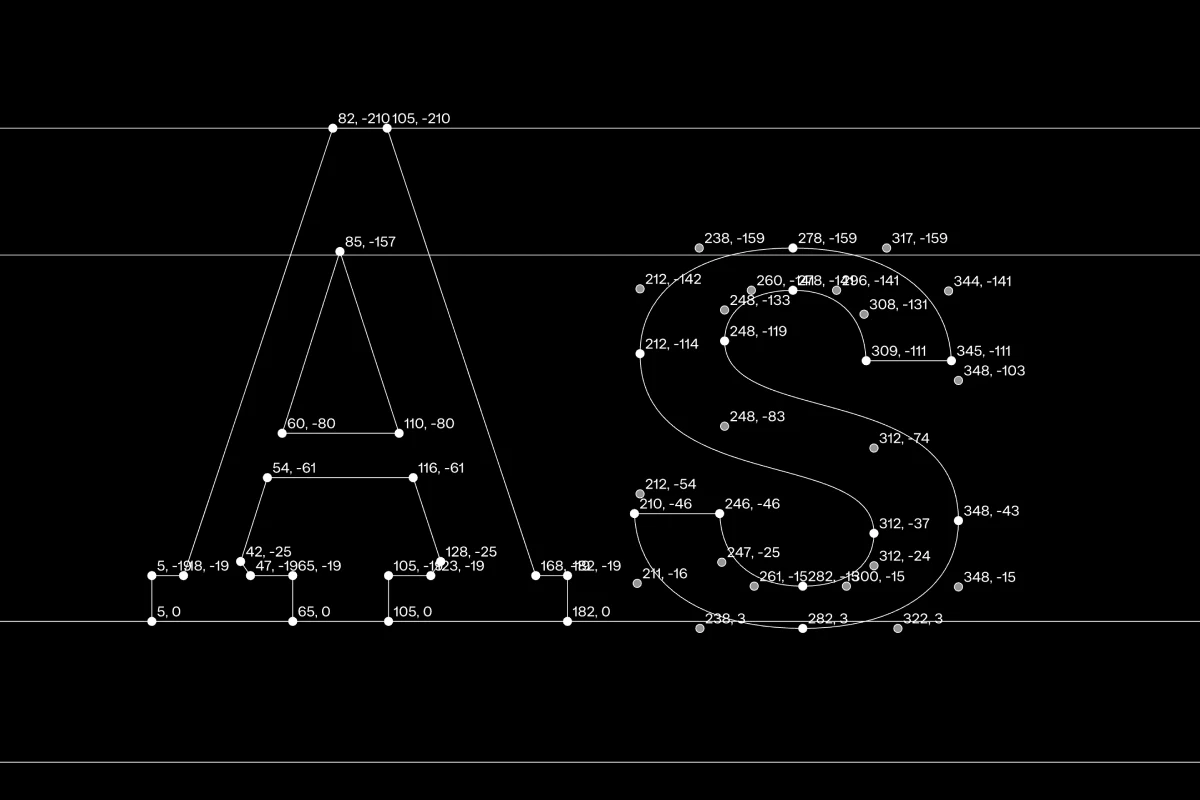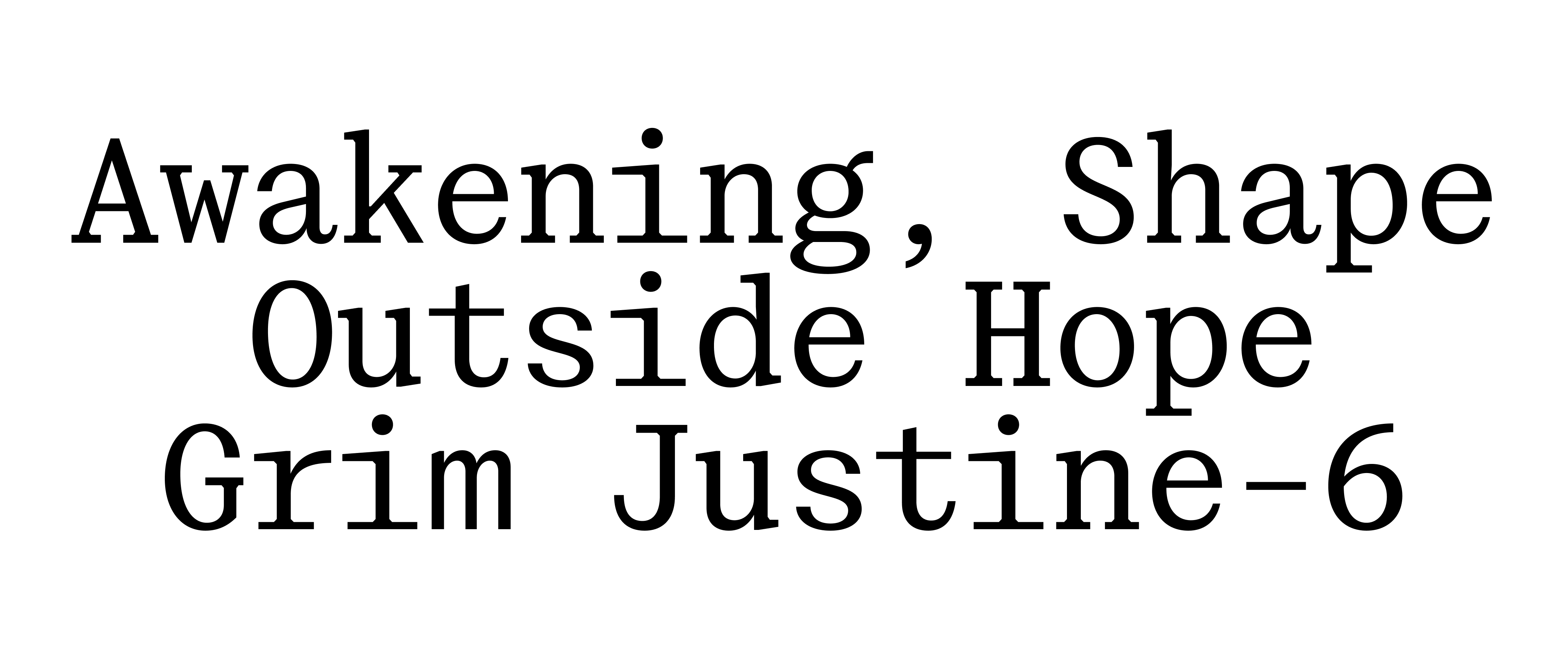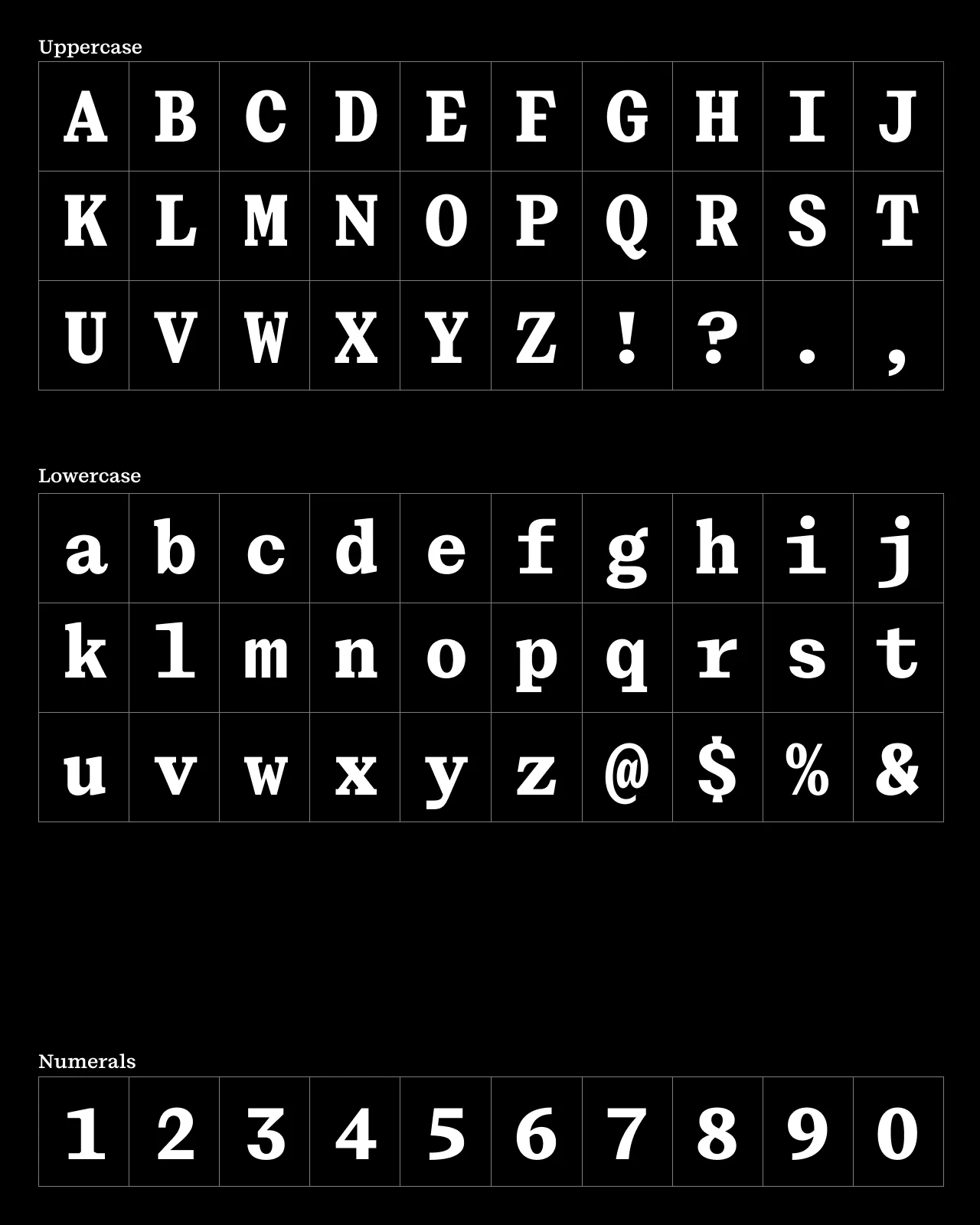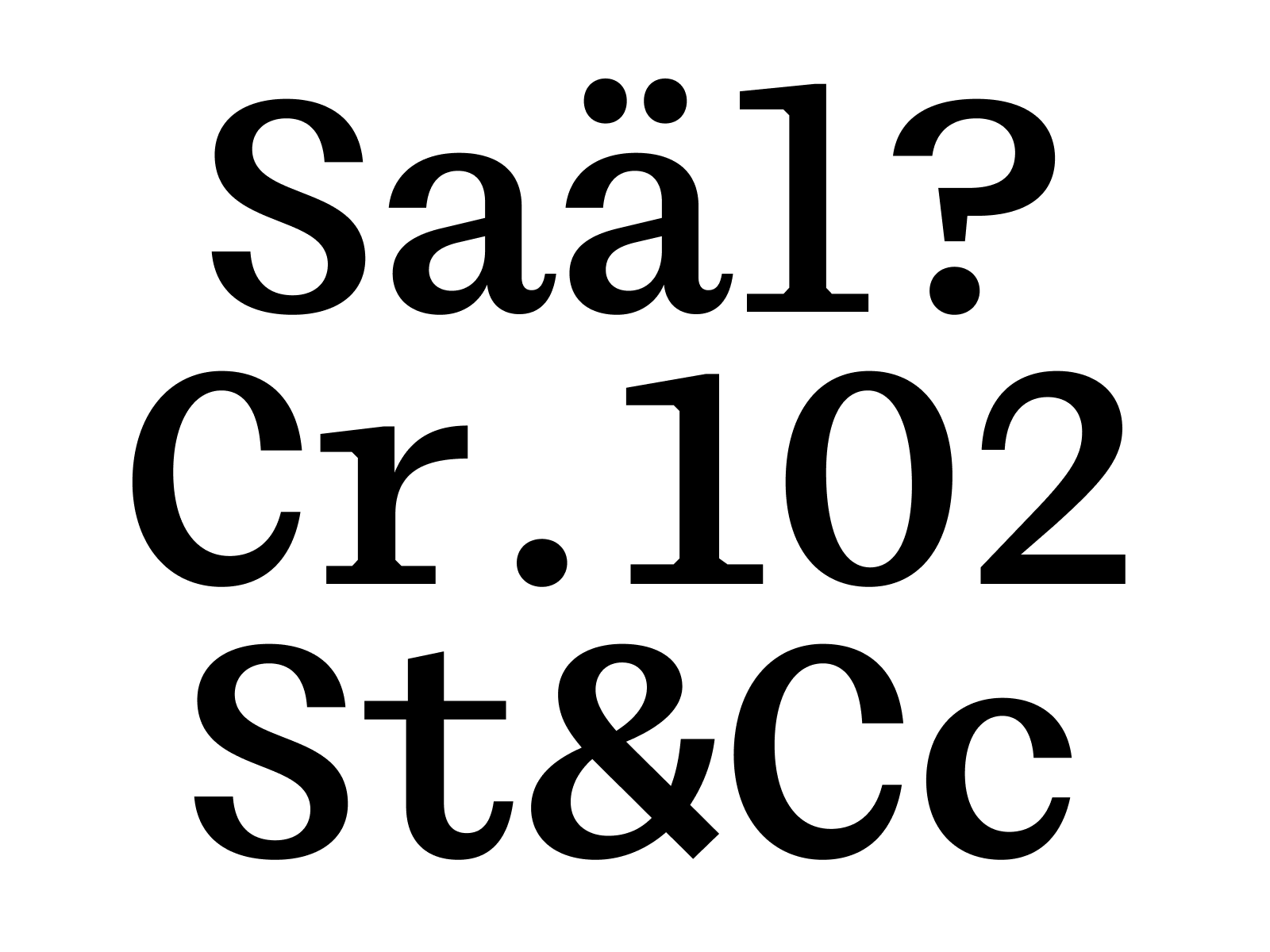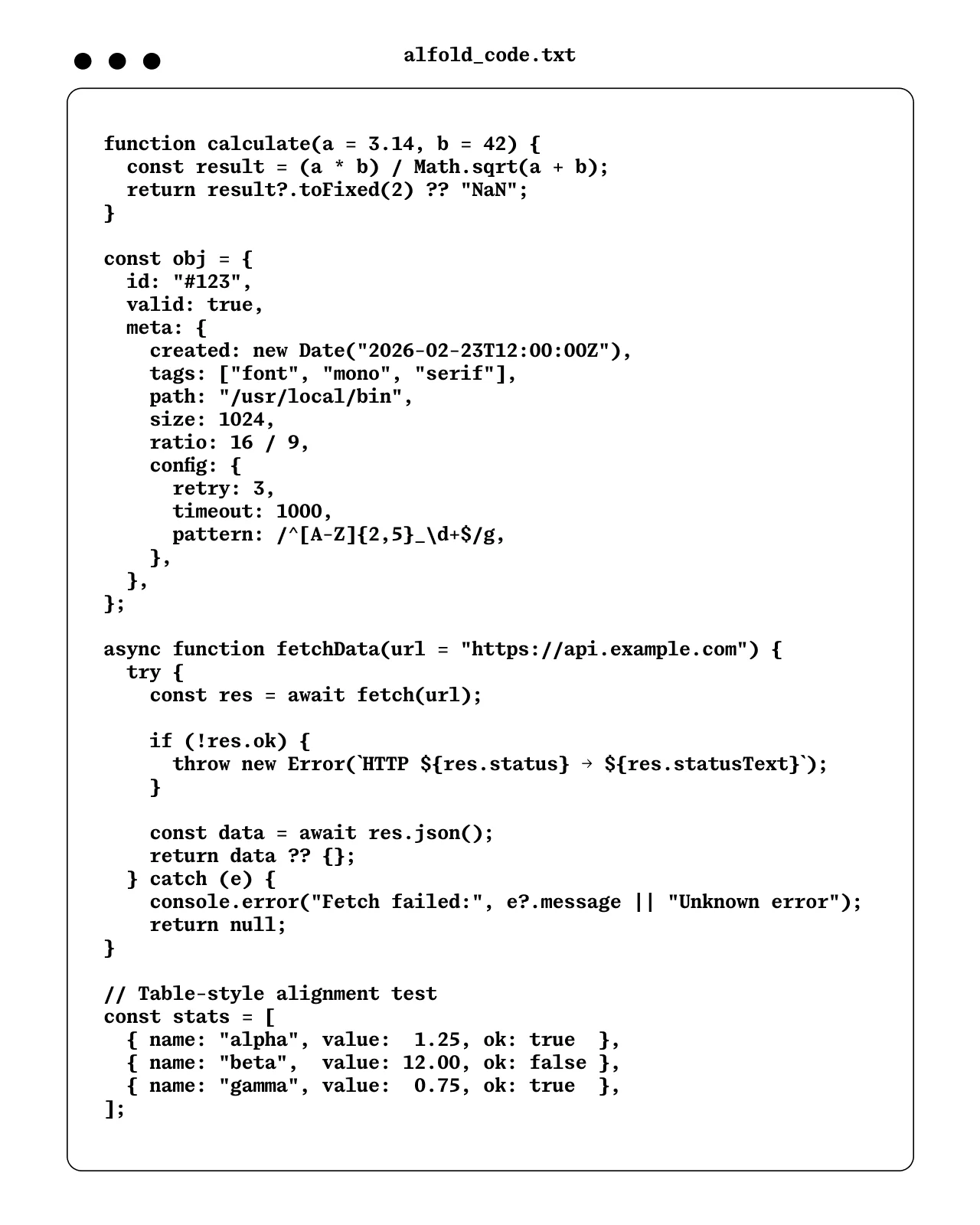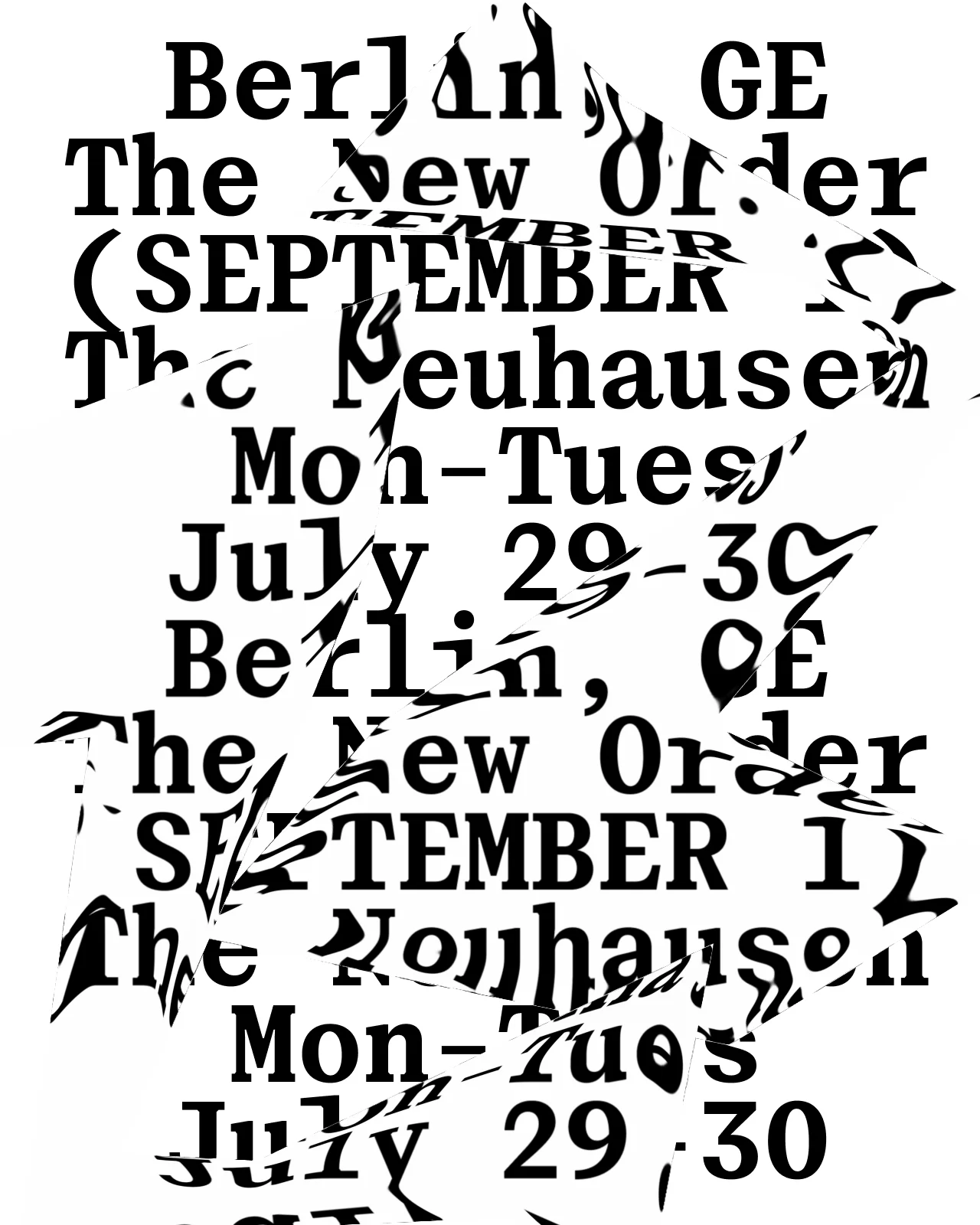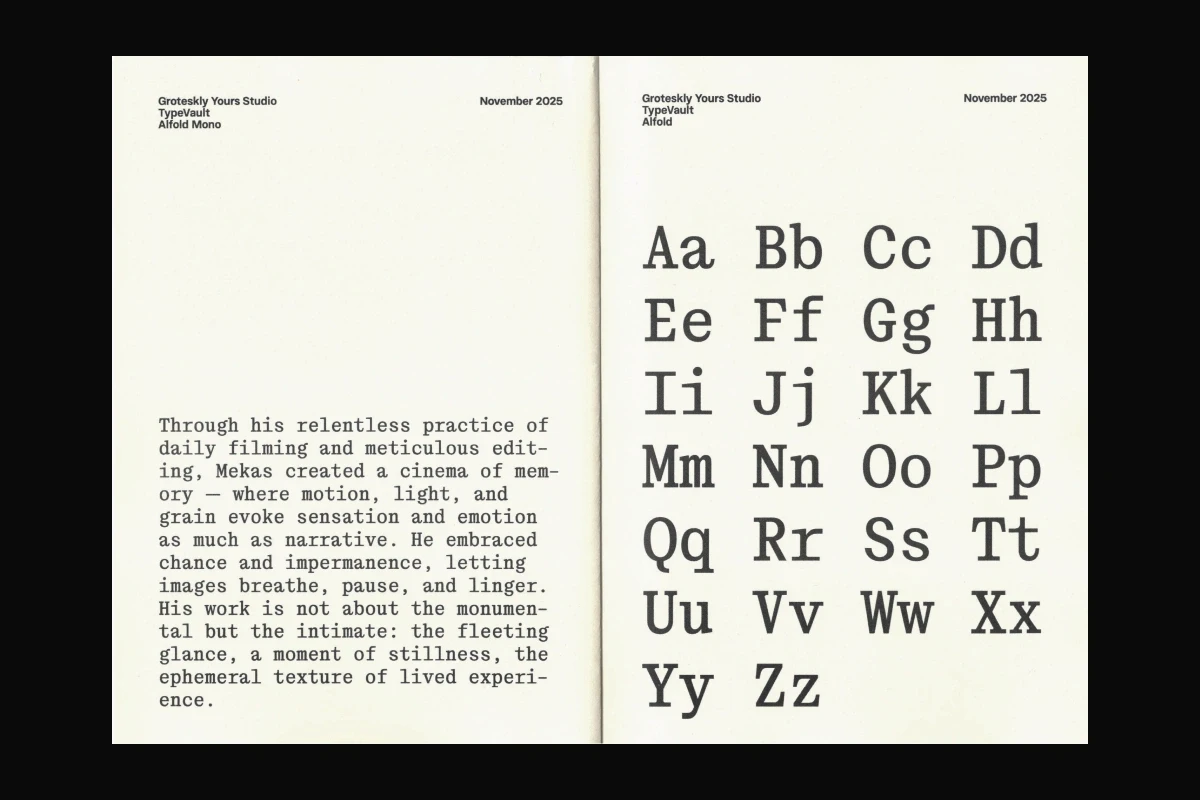
Alfold Mono
Alfold Mono is a monospaced serif font family in 9 styles. As part of the complete Alfold font family, featuring Upright, Mono and Semi-Mono subfamilies, it draws inspiration from the fonts found in the 1936 issue of the Alfold magazine from Subotica. Stylistically, Alfold opts for a toned-down, neutral look that is complimented by the straightforward character structure, tight spacing, and high versatility across all three subfamilies.
The Alfold Mono subfamily is designed as a monospaced counterpart to the Upright family, intended for more experimental design scenarios where the unmistakable monospaced aesthetic becomes a deliberate stylistic choice. Alfold Mono retains the visual character of the Alfold type family while preserving full monospaced functionality. This makes it equally capable of handling both creative design projects and more utilitarian applications where legibility takes precedence.
Alfold Mono works seamlessly alongside the Upright subfamily, or as a standalone family. It features 9 styles and a variable font, each with a character set of 560+ glyphs, along with a selection of OpenType features including stylistic alternates, fractions, and case-sensitive forms, for precise typographic control.
Eugene Tantsurin, Anna Remm